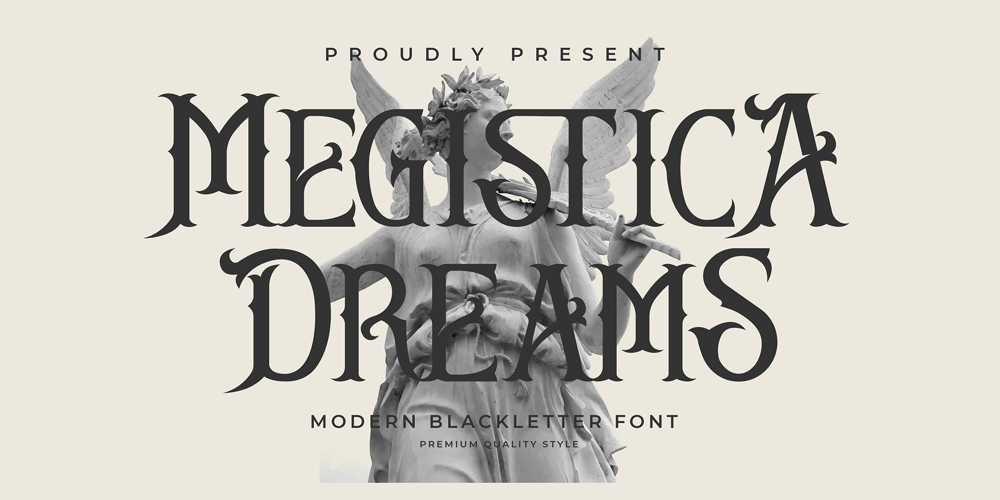
Megistica Dreams Font Family was designed by Heru Utama Putra and published by Letterena Studios. Megistica Dreams contains 2 styles and family package options. Megistica Dreams is a serif modern blackletter typeface that has its unique style & modern look. This typeface is perfect for an elegant & luxury logo, book or movie title design, fashion brand, magazine, clothes, lettering, quotes, and so much more.